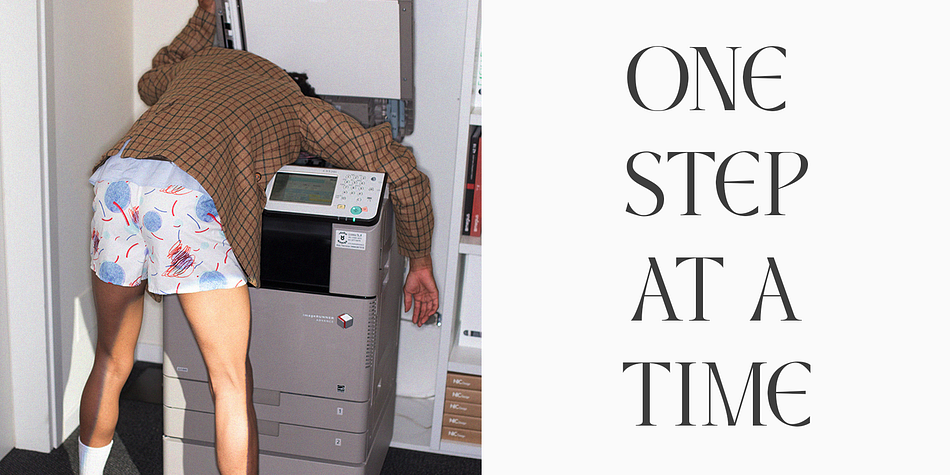
Glorify SH
Glorify SH is a display serif font family. This typeface has four styles and was published by Sohel Studio.
Glorify SH is a Modern vintage serif typeface with Unique alternative , multilingual support with perfect kerning. This typeface is perfect for an elegant & luxury logo , classy editorial design, women’s magazine, fashion brand , cosmetic brand, fashion promotion , modern advertising design, invitation card, art quote, home decoration , book/cover titles, special events, Tote bag, T-shirt, Advertising and much more.